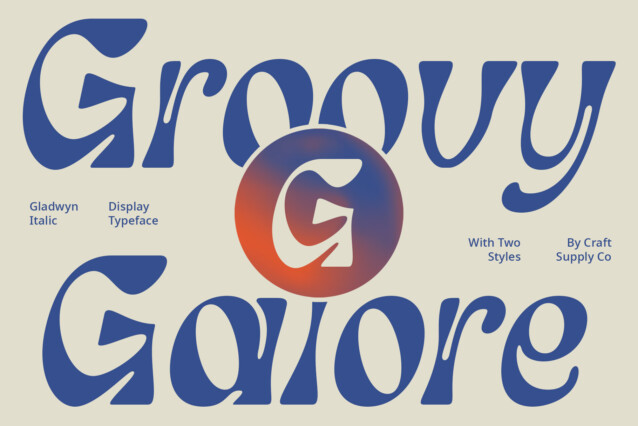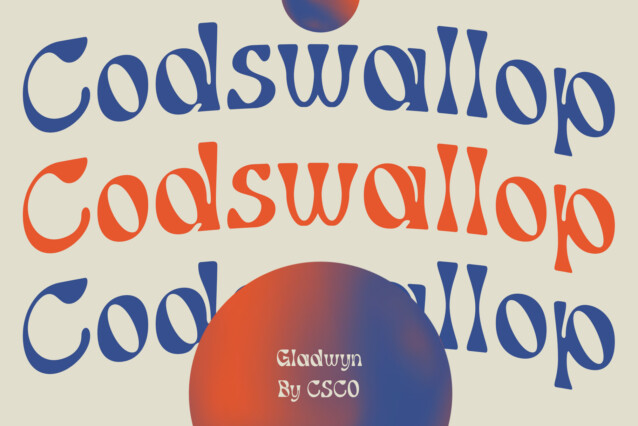
Gladwyn Display Font
Gladwyn Display Font: Embracing Funky Display Typography. Gladwyn exudes a vibrant and playful vibe with its funky design, making it perfect for eye-catching displays. Its bold strokes and lively curves captivate attention, ensuring that your message stands out in any setting.
Distinctive Funky Nuances
The font boasts distinctive funky nuances that set it apart, injecting a sense of fun and personality into any project. Its quirky elements and unique character variations add depth and charm to your designs, creating a memorable visual impact.